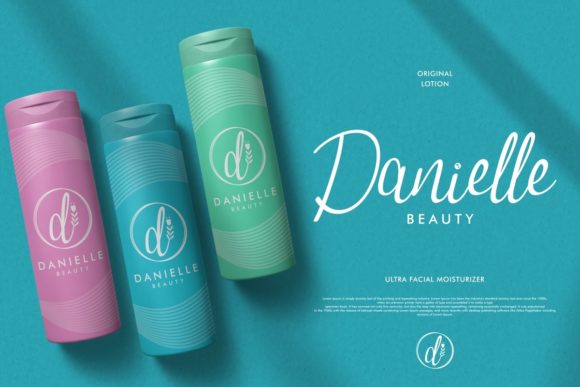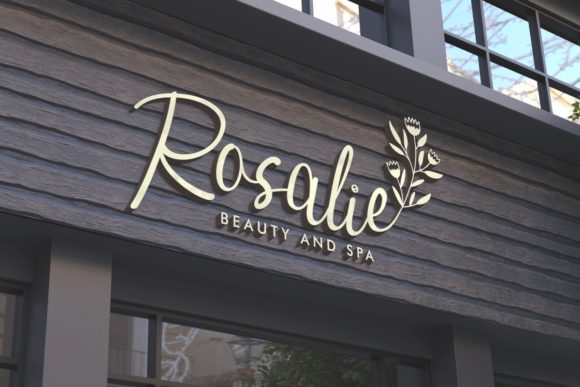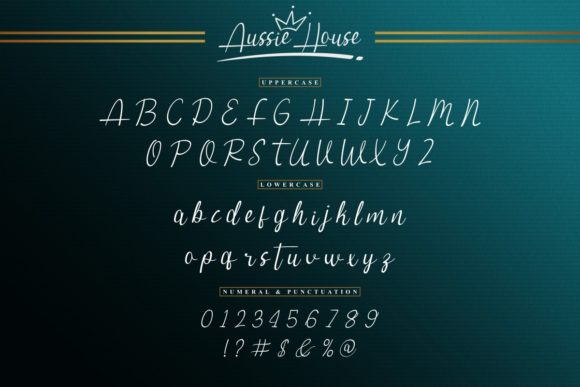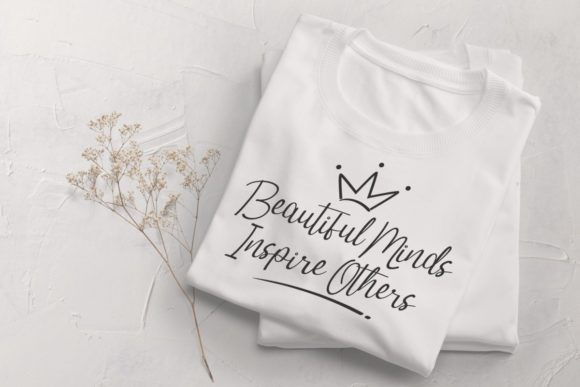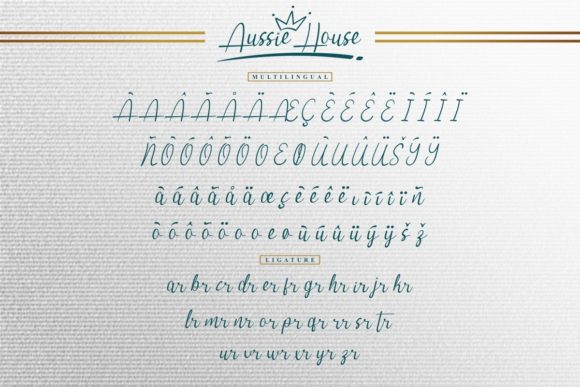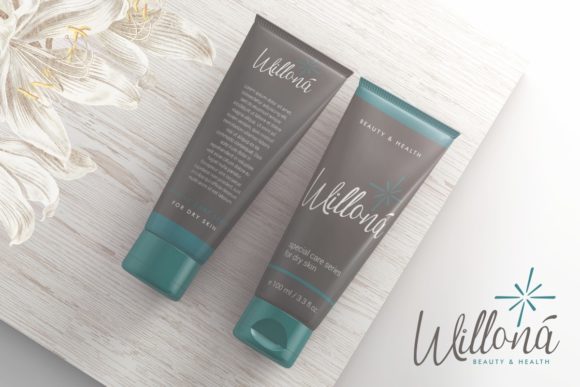
Aussie House Font: Elevate Your Designs with Elegance and Class
Are you tired of using the same old fonts in your designs? Look no further than the Aussie House font, a lovely and delicate script font that exudes elegance and class. This beautiful font is perfect for designers and crafters who want to add a touch of sophistication to their work.
What is Aussie House Font?
Aussie House is a carefully crafted script font that is designed to bring a refreshing and beautiful look to your designs. With its delicate strokes and elegant curves, this font is sure to impress. Whether you’re working on a branding project, a wedding invitation, or a craft project, Aussie House is the perfect choice.
Key Features of Aussie House Font
- PUA Encoded: Aussie House font is PUA (Private Use Area) encoded, which means you can access all glyphs and swashes with ease. This makes it easy to use and customize the font to suit your needs.
- Elegant and Delicate: The font features delicate strokes and elegant curves, making it perfect for designs that require a touch of sophistication.
- Script Font: Aussie House is a script font, which means it’s perfect for adding a personal touch to your designs.
- Refreshing Look: The font has a refreshing look that’s sure to make your designs stand out from the crowd.
Who is Aussie House Font for?
Aussie House font is perfect for designers and crafters who want to add a touch of elegance and class to their work. This includes:
- Graphic Designers: If you’re working on a branding project, a logo design, or a marketing campaign, Aussie House font is a great choice.
- Wedding Planners: If you’re planning a wedding, Aussie House font is perfect for creating beautiful wedding invitations, stationery, and decorations.
- Crafters: If you’re a crafter who loves to create handmade cards, gift tags, and other paper crafts, Aussie House font is a great addition to your toolkit.
- Stationery Designers: If you design stationery, such as notebooks, journals, and planners, Aussie House font is a great choice.
How to Use Aussie House Font
Using Aussie House font is easy. Here are a few tips to get you started:
- Pair it with Other Fonts: Aussie House font looks great when paired with other fonts. Try pairing it with a bold font for a contrasting look.
- Use it for Headings: Aussie House font is perfect for headings and titles. Use it to add a touch of elegance to your designs.
- Experiment with Swashes: With PUA encoding, you can access all glyphs and swashes with ease. Experiment with different swashes to add a personal touch to your designs.
Benefits of Using Aussie House Font
- Adds Elegance and Class: Aussie House font adds a touch of elegance and class to your designs.
- Versatile: The font is versatile and can be used for a variety of design projects.
- Easy to Use: With PUA encoding, Aussie House font is easy to use and customize.
- Refreshing Look: The font has a refreshing look that’s sure to make your designs stand out from the crowd.
In conclusion, Aussie House font is a beautiful and elegant script font that’s perfect for designers and crafters who want to add a touch of sophistication to their work. With its delicate strokes, elegant curves, and PUA encoding, this font is easy to use and customize. Whether you’re working on a branding project, a wedding invitation, or a craft project, Aussie House font is a great choice.